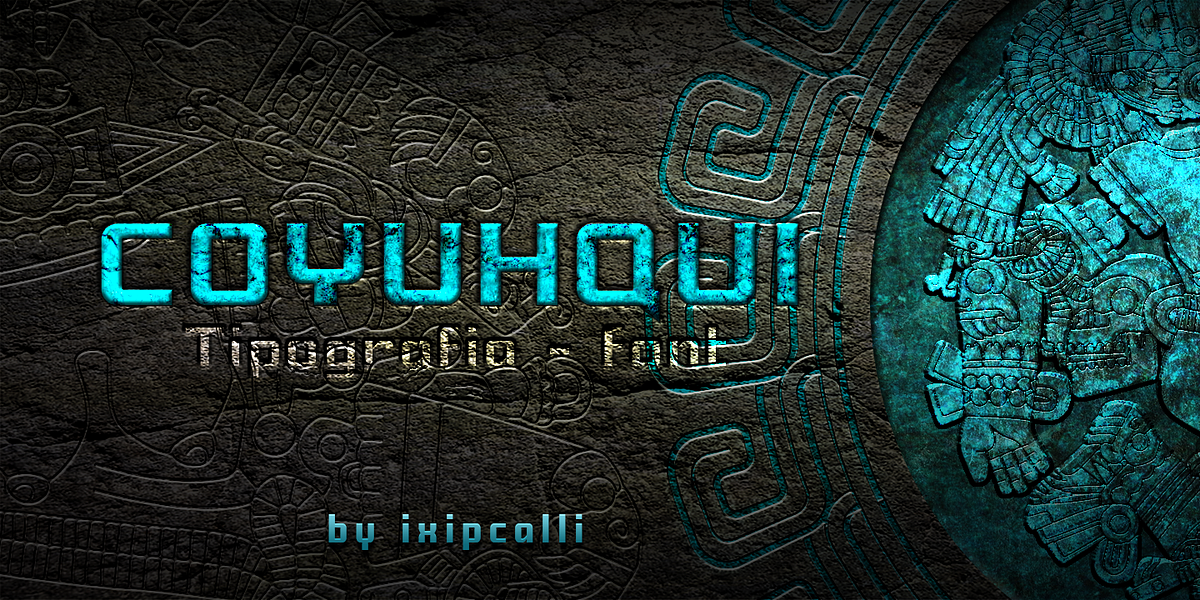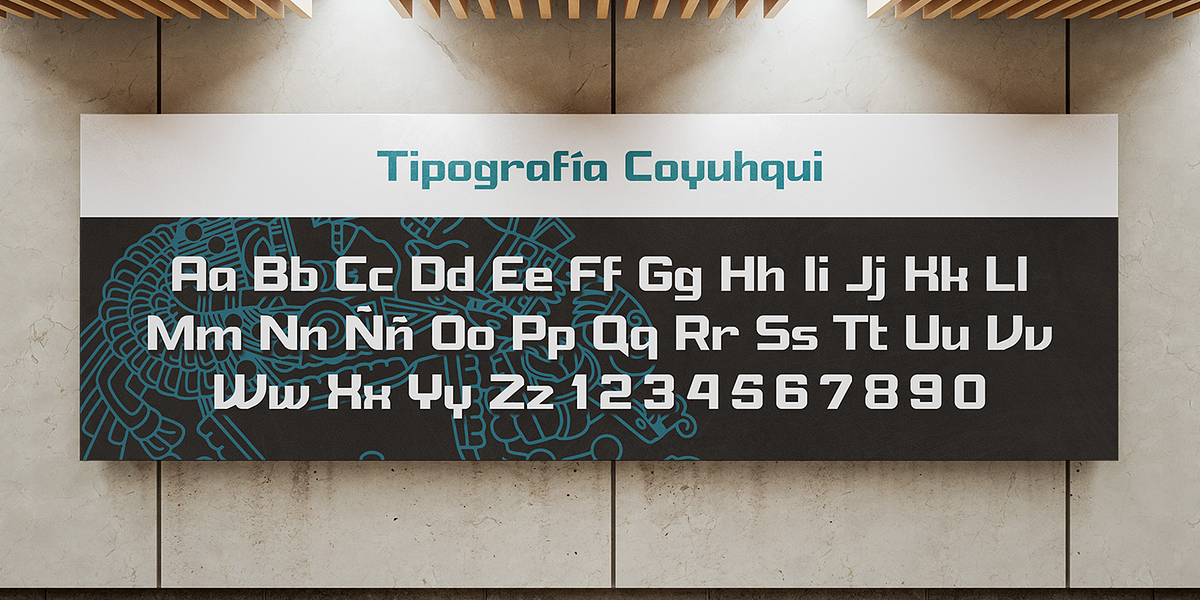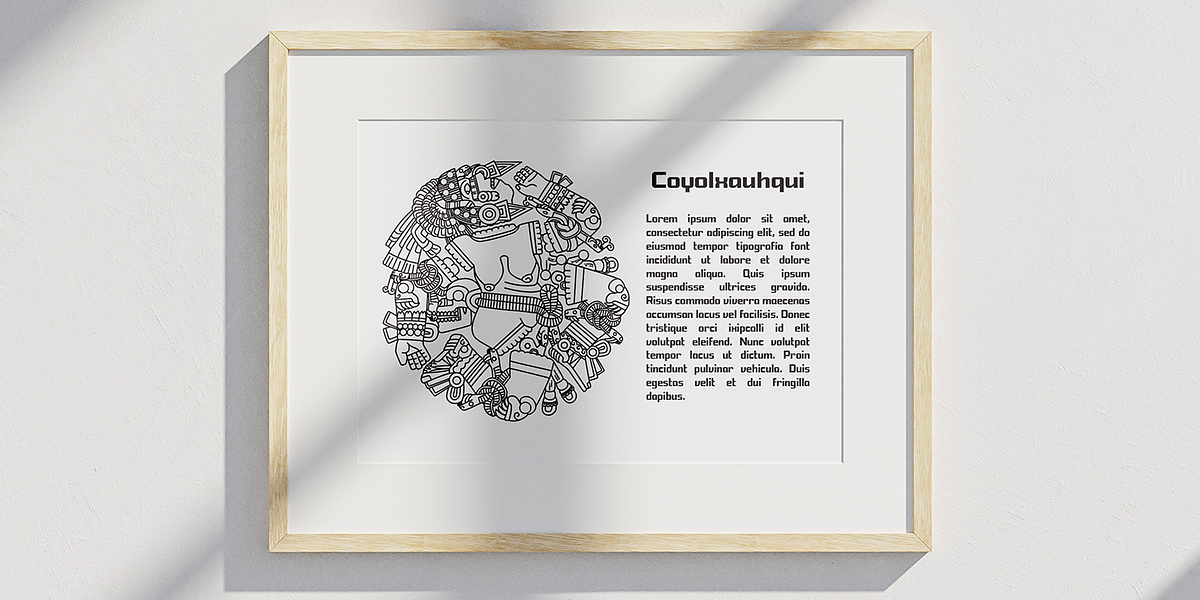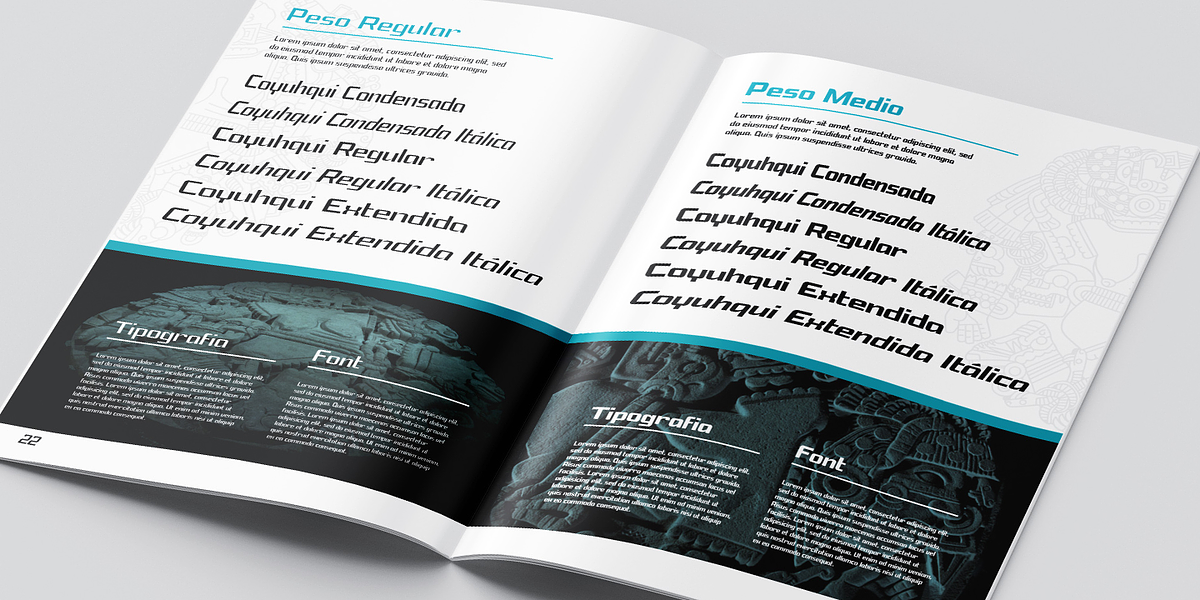
Coyuhqui
Coyuhqui is a semi-geometric sans serif typeface designed for display purposes. It offers versatility with two weights (regular and medium) and three widths (condensed, regular, and extended), resulting in twelve unique styles. Its technical aesthetic makes it well-suited for applications like posters and flyers.